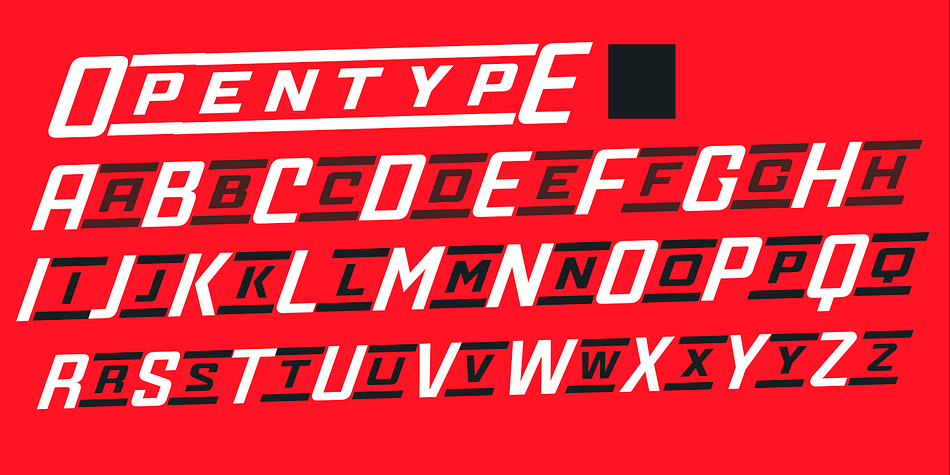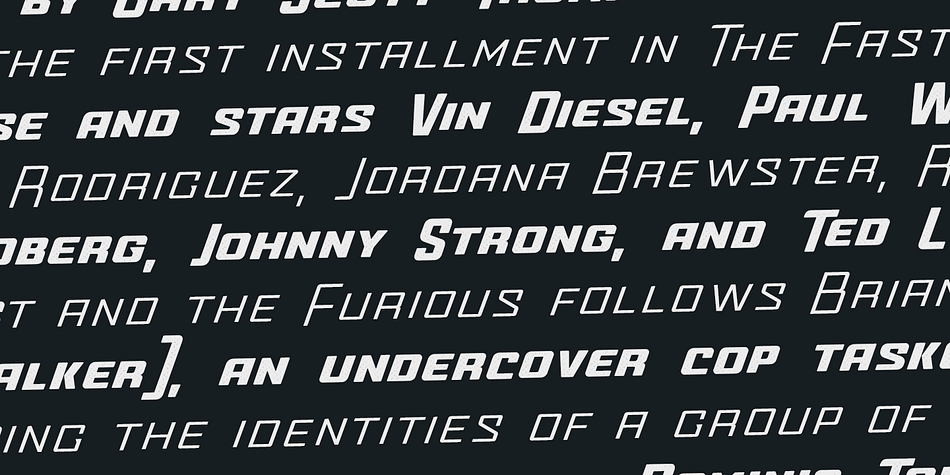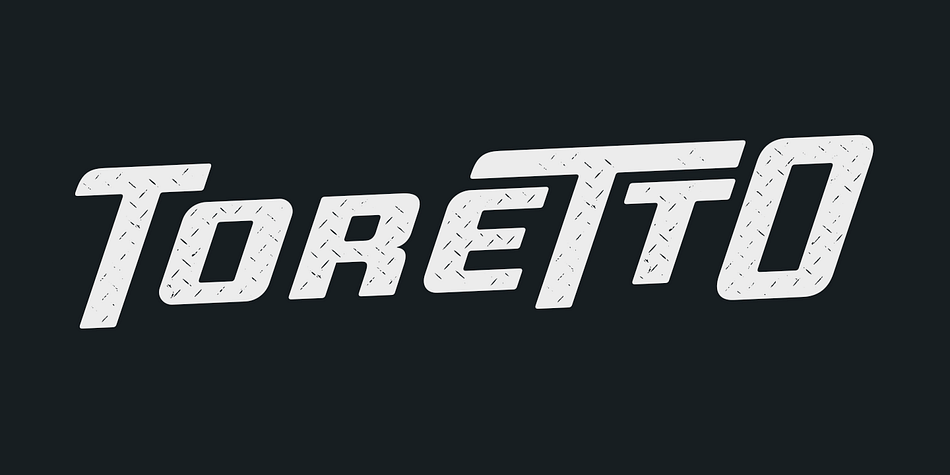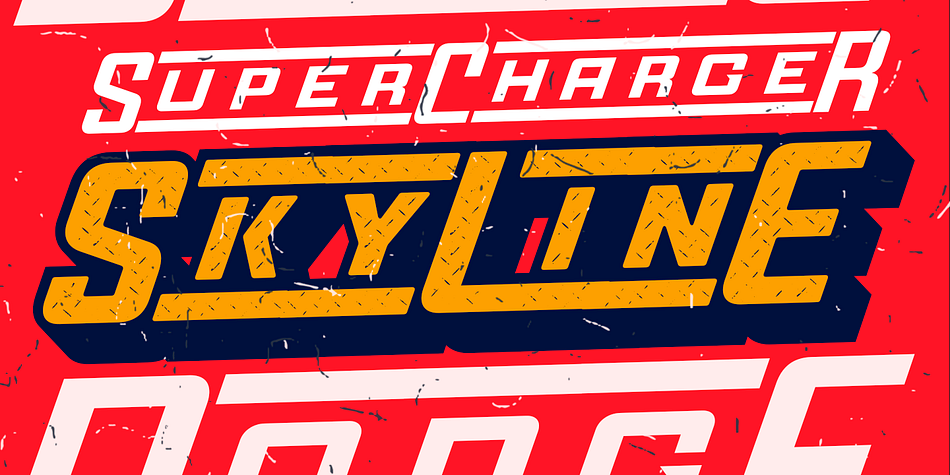
Designed by Rodrigo Salas, Tunning is a display sans font family. This typeface has seven styles and was published by Rodrigo Typo.
fonts inspired by car racing, speed and Action with different weights and with a set of Alternatives.
| Style | Display Sans |
| Designer | Rodrigo Araya Salas |